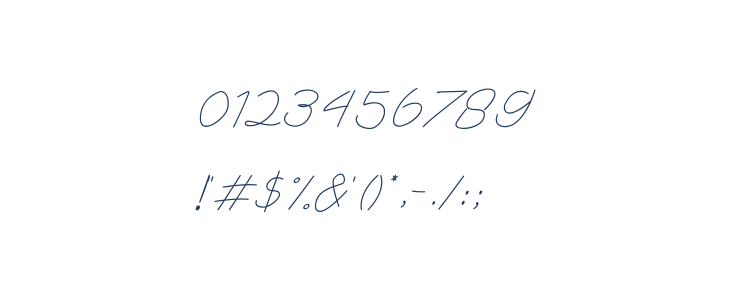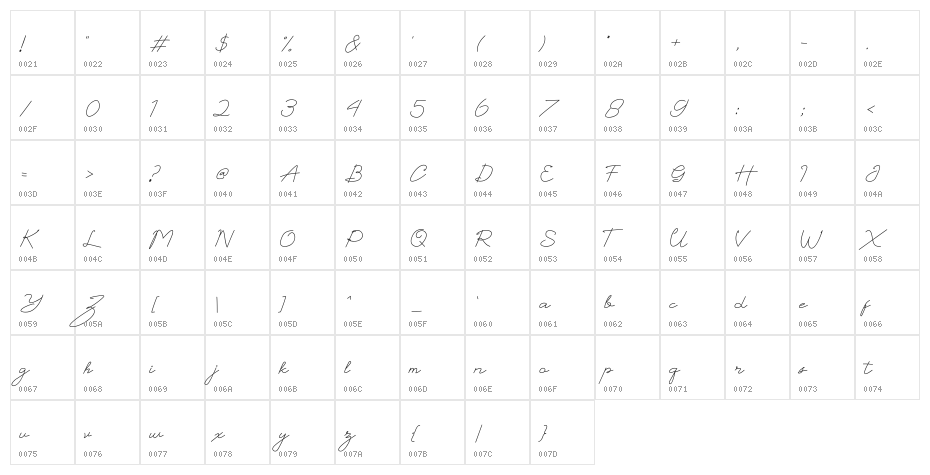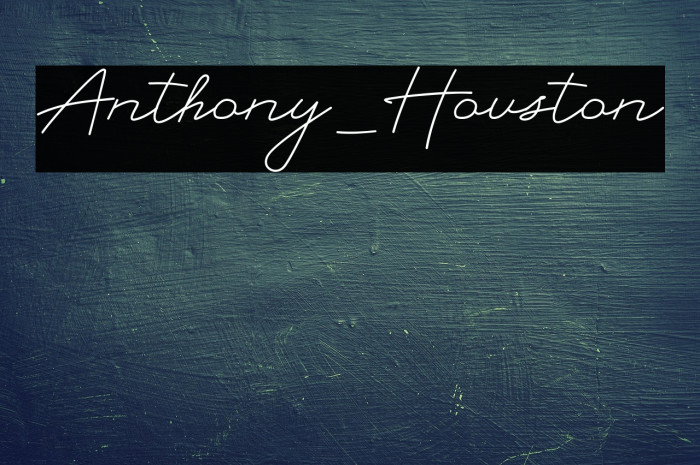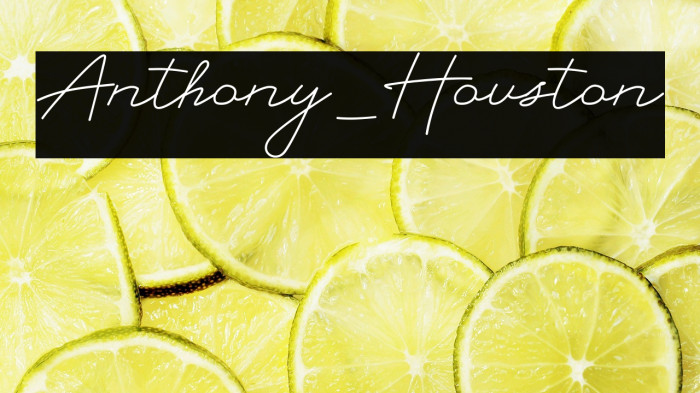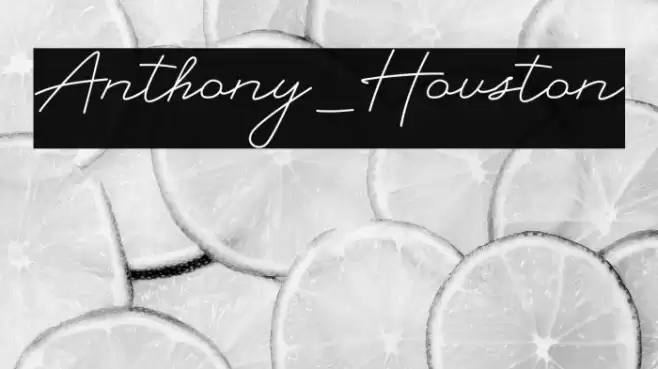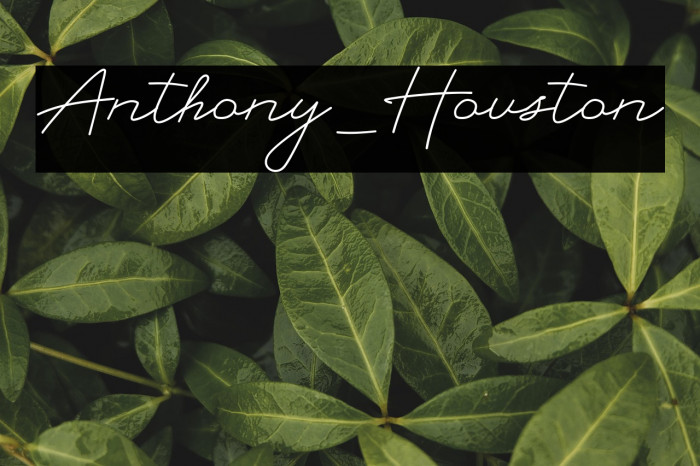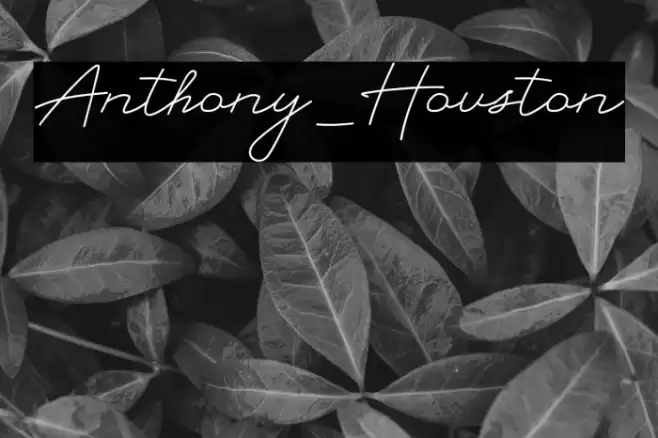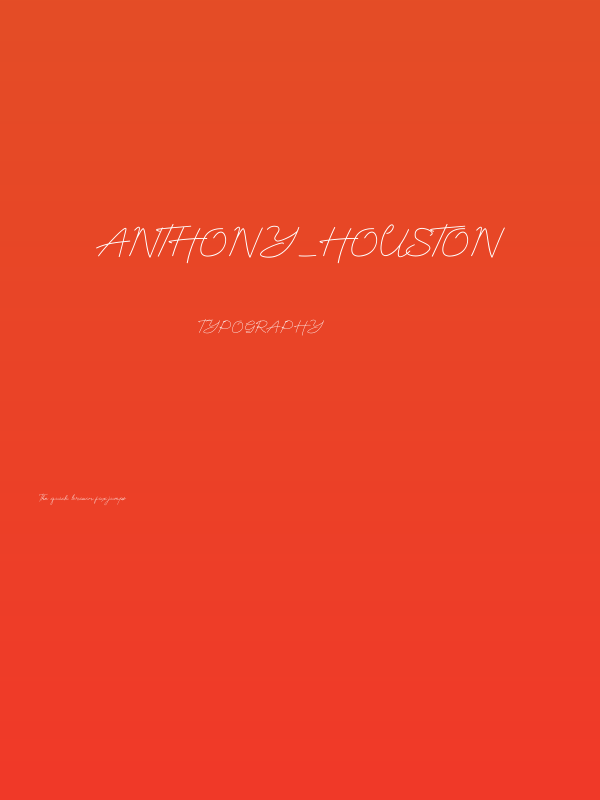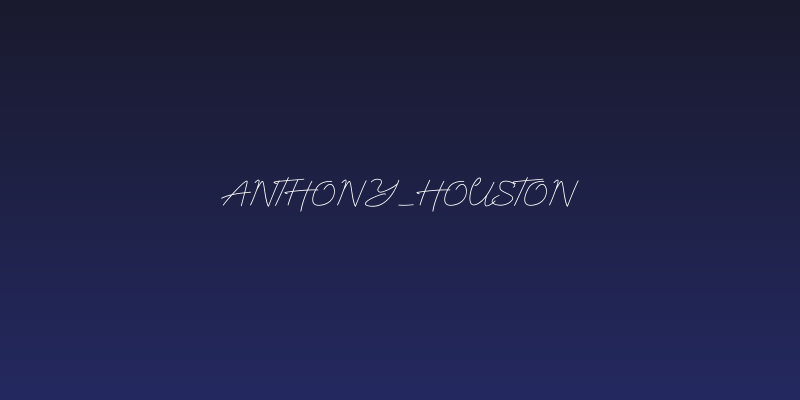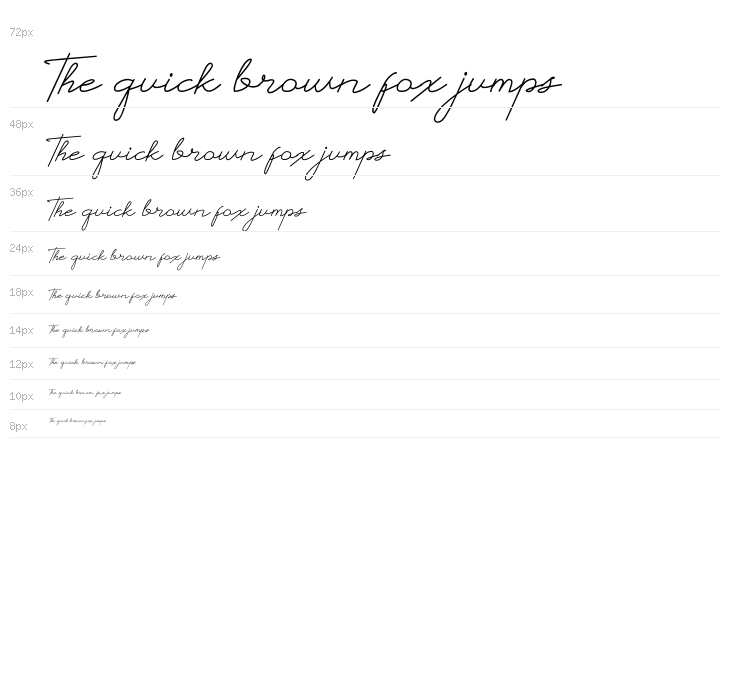
Anthony_Houston Font
Anthony_Houston Description
This font features an elegant, flowing script style that mimics natural handwriting with a refined touch. The uppercase letters are characterized by sweeping curves and elongated strokes, giving them a sophisticated and graceful appearance. The lowercase letters maintain a consistent flow, with smooth connections between characters, enhancing readability while preserving the script's artistic flair. The numerals are crafted with a similar fluidity, ensuring they blend seamlessly with the alphabetic characters. Special characters are thoughtfully designed to complement the overall aesthetic, making this font versatile for various applications.